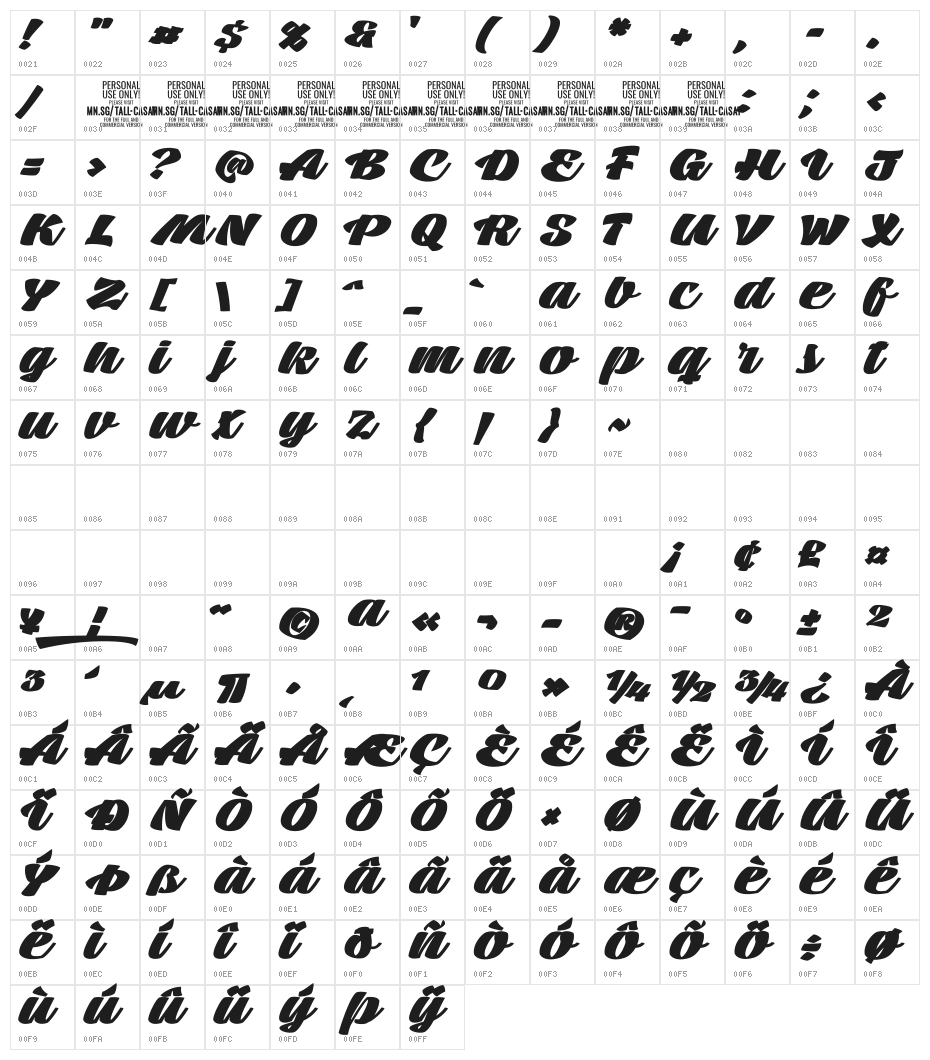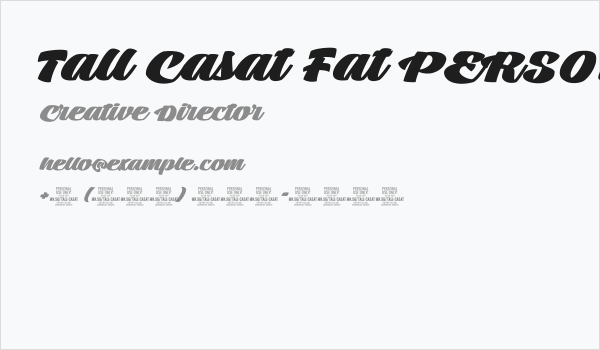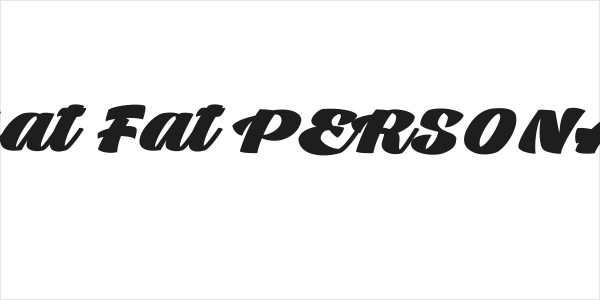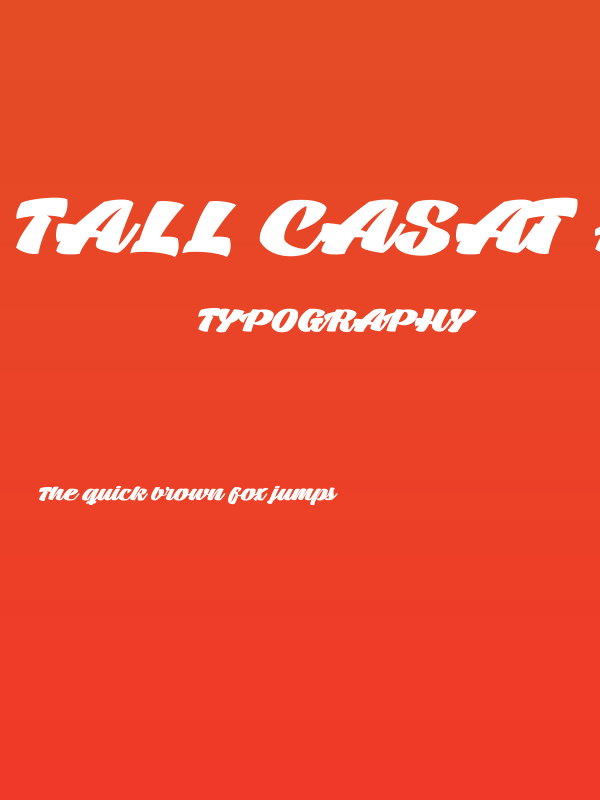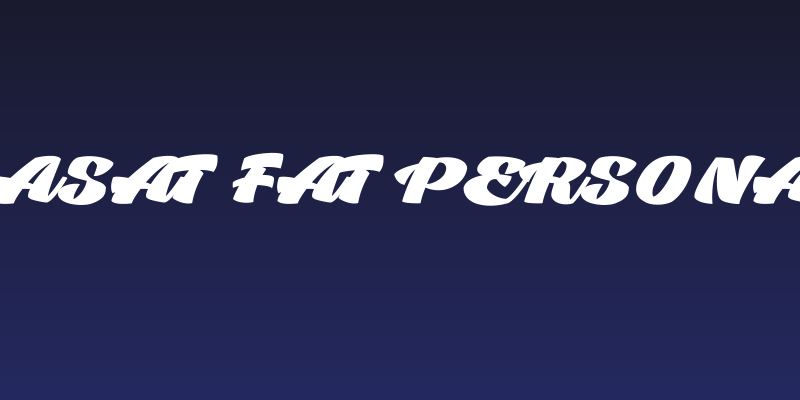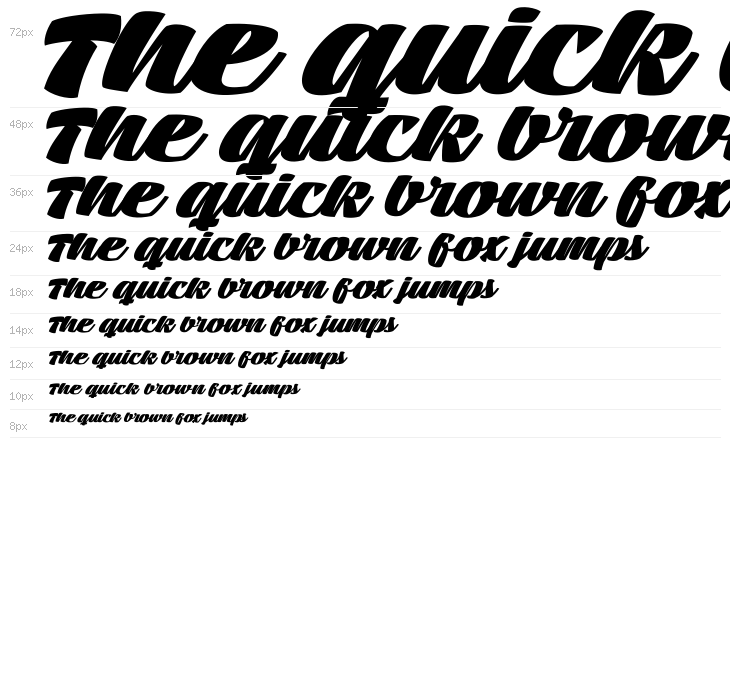
Tall Casat Fat PERSONAL USE Font
Tall Casat Fat PERSONAL USE Description
This font features a bold, cursive style with a strong presence. The letters are thick and rounded, giving a sense of fluidity and movement. The uppercase and lowercase letters maintain a consistent style, with smooth curves and a slightly slanted orientation. The numbers and special characters are equally bold, ensuring uniformity across all characters. This font exudes a sense of modernity while retaining a classic cursive appeal, making it versatile for various design needs.